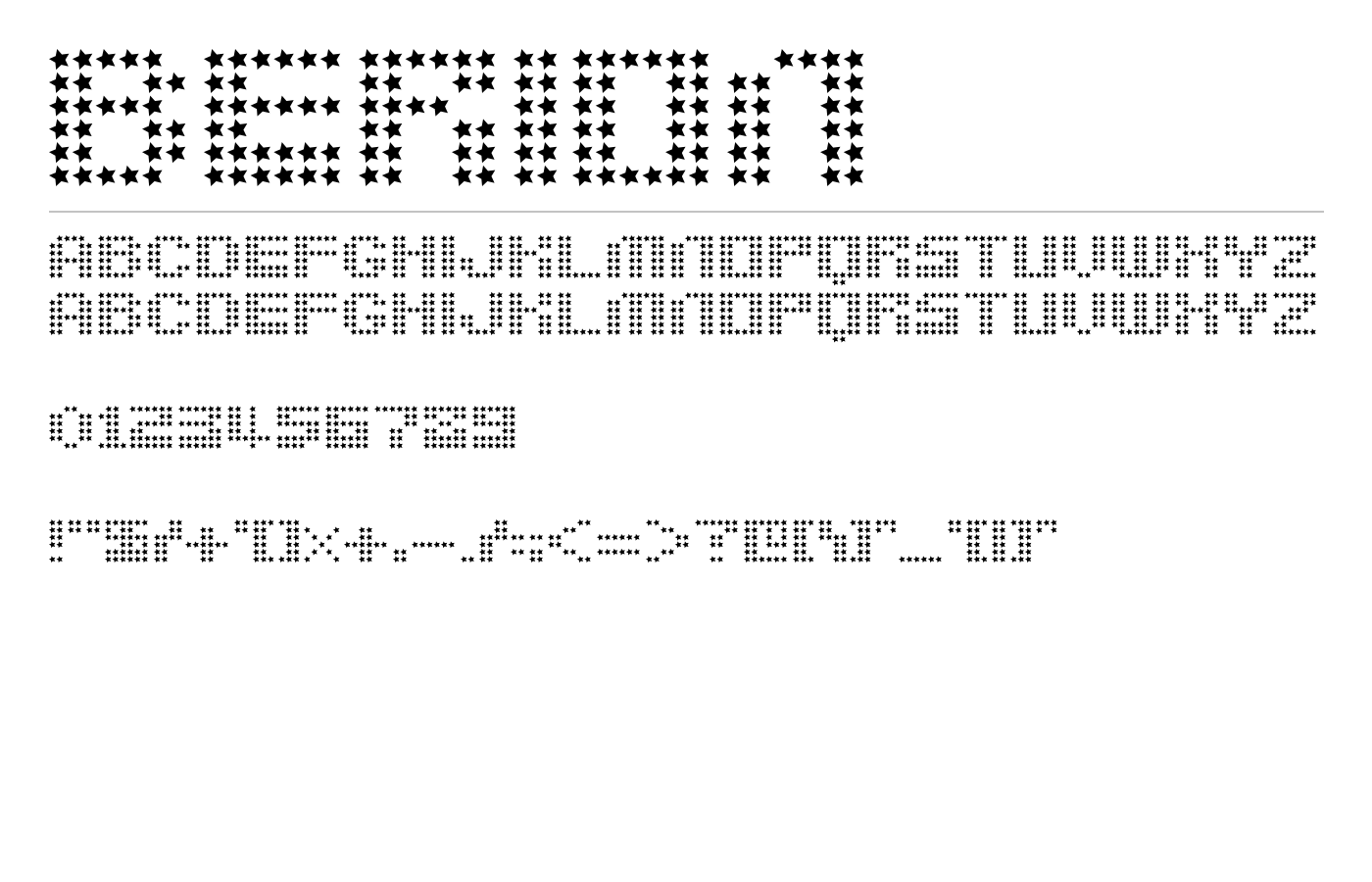
Berion is a unique, decorative sans serif font composed entirely of star-shaped dots, giving it a playful and festive character. Its monospaced design and geometric simplicity make it ideal for eye-catching headlines, party invitations, or themed graphic designs where a fun and celebratory mood is desired. This font's distinct style works best in display use, adding charm and a whimsical touch to creative projects.
berion Font
About berion Font